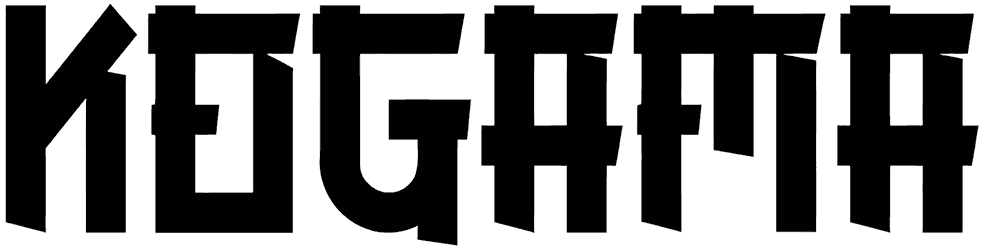
Kogama Font
Draw all attention to your design in an instant with Kogama, our new Samurai font. The characters have their unique shape, which is a positive feature to stand it out from others. You should know that it doesn’t include numbers and most punctuation. This font will be great for food banners, game interfaces, apparel prints, movie posters, and other Asian-related stuff.